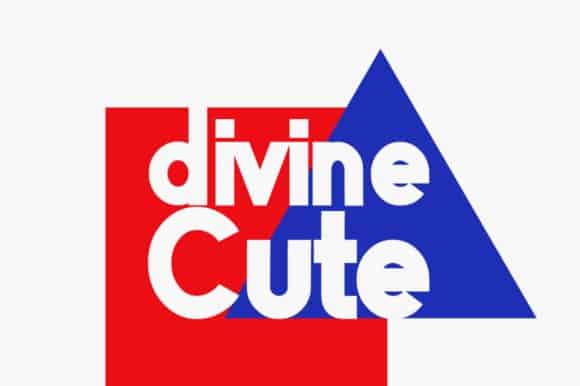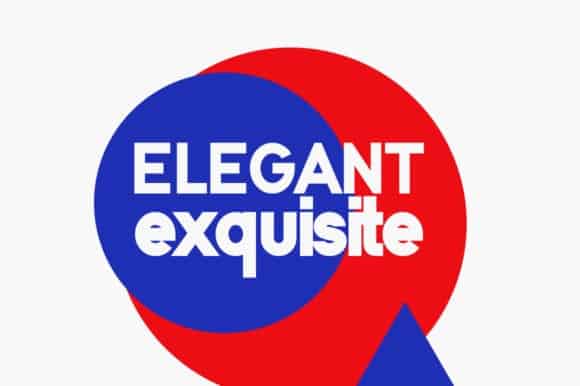
Qiko Sans Serif Font
Introducing Qiko Sans Serif Font – a new sans serif typeface with an elegant, classy and modern look. This font is designed and shared by Seemly Fonts. It’s a simple and casual sans serif font with an undeniably clean feel. With its neat and beautiful arrangement of letters, this typeface will look outstanding in both formal and non-formal designs. This font is very suitable for use in your project such as: branding, UI, logo, magazine, poster and others.